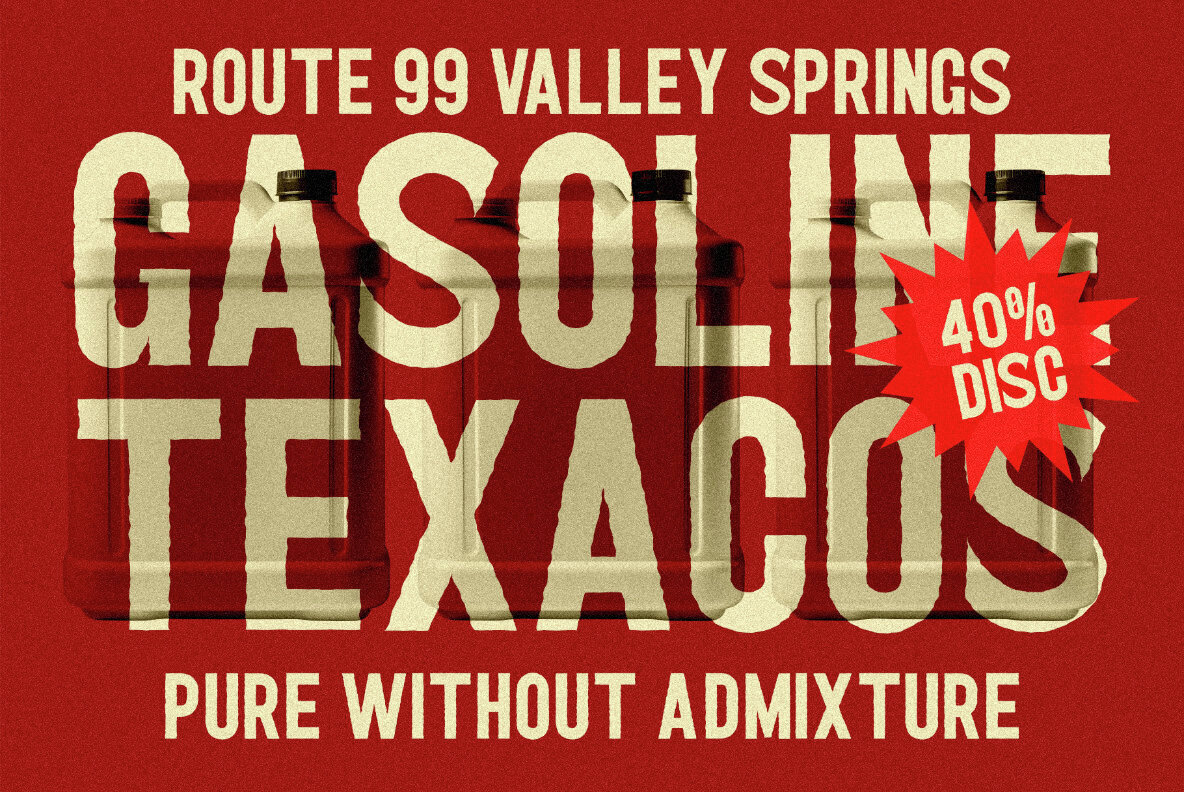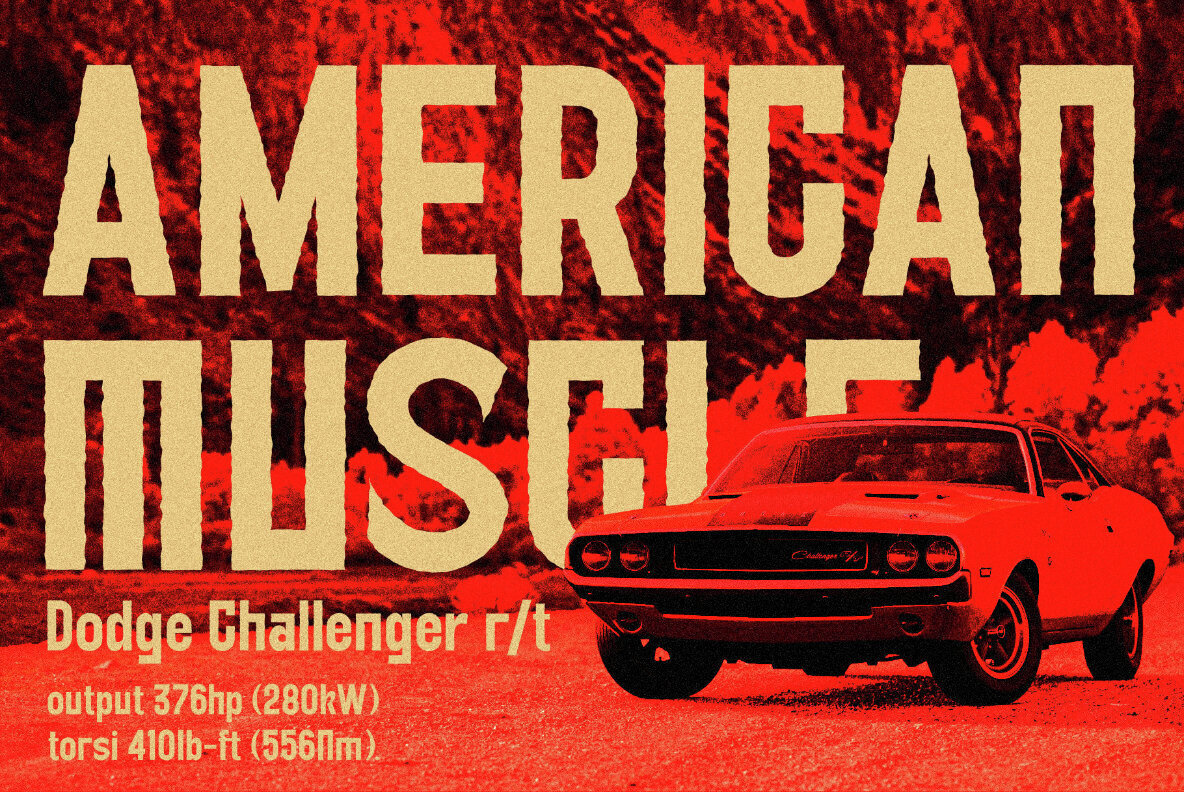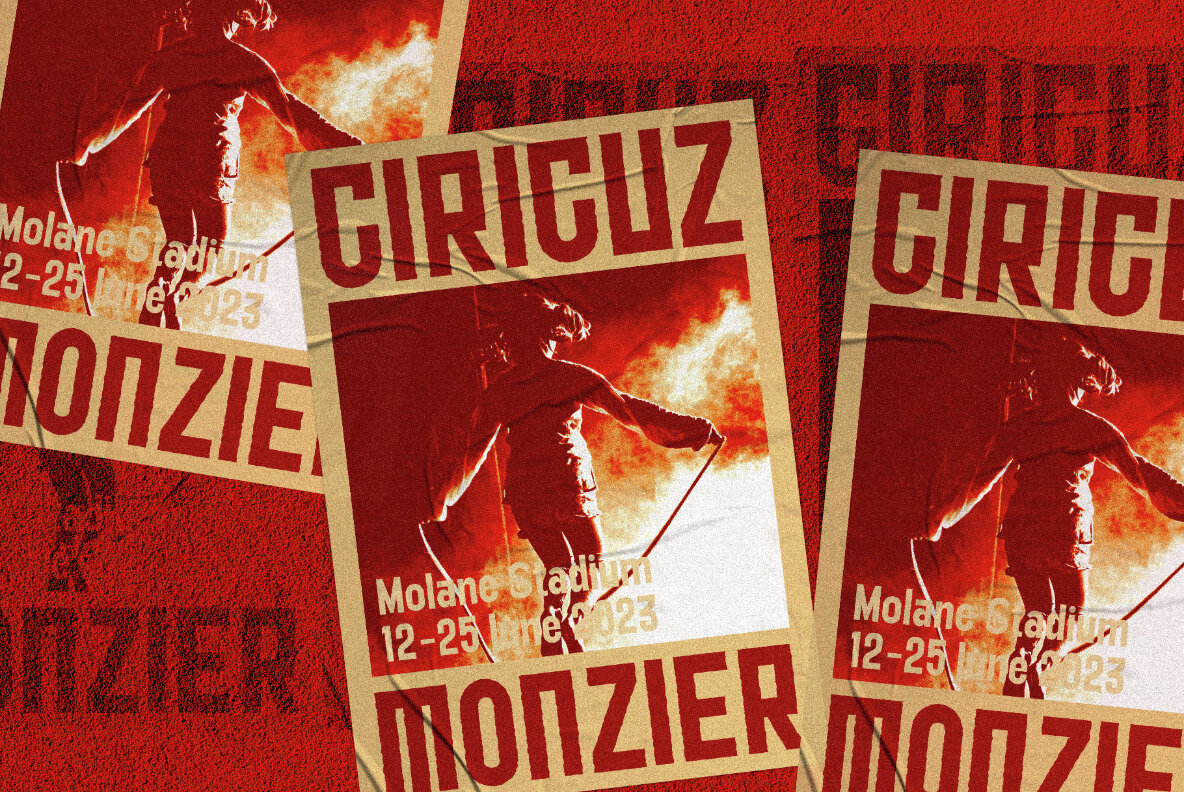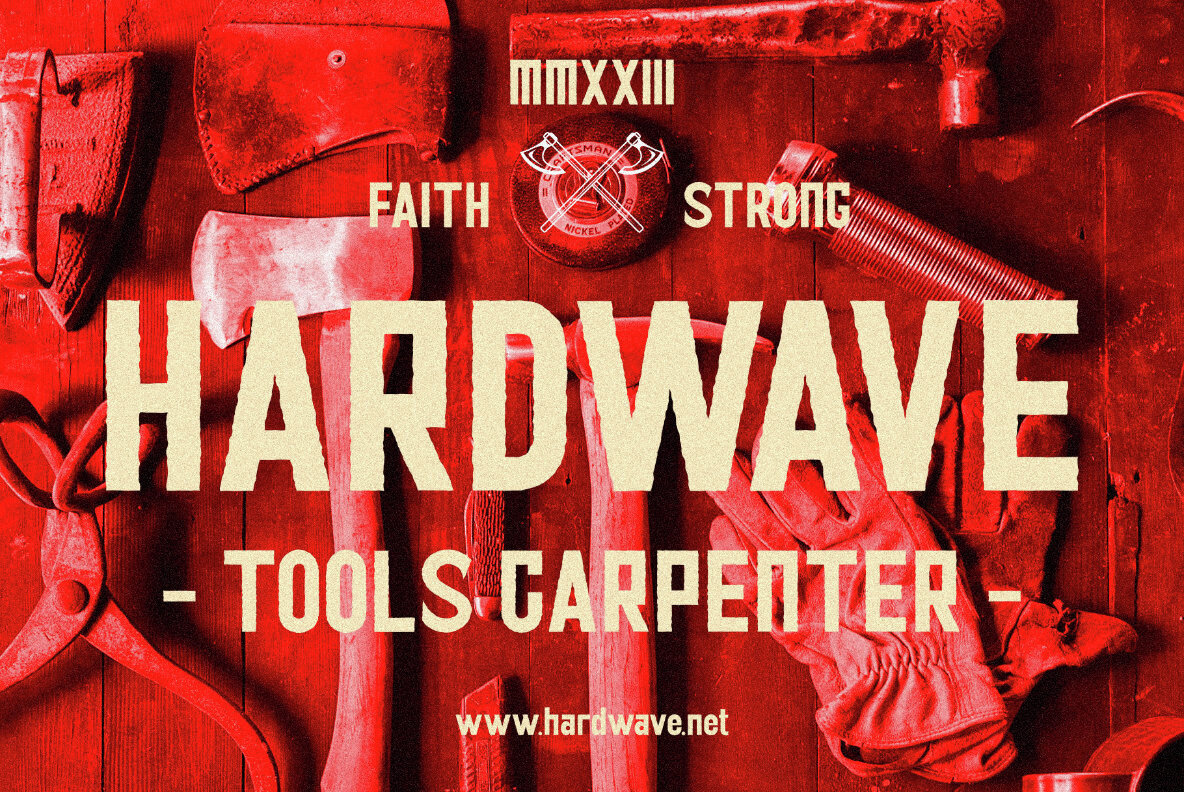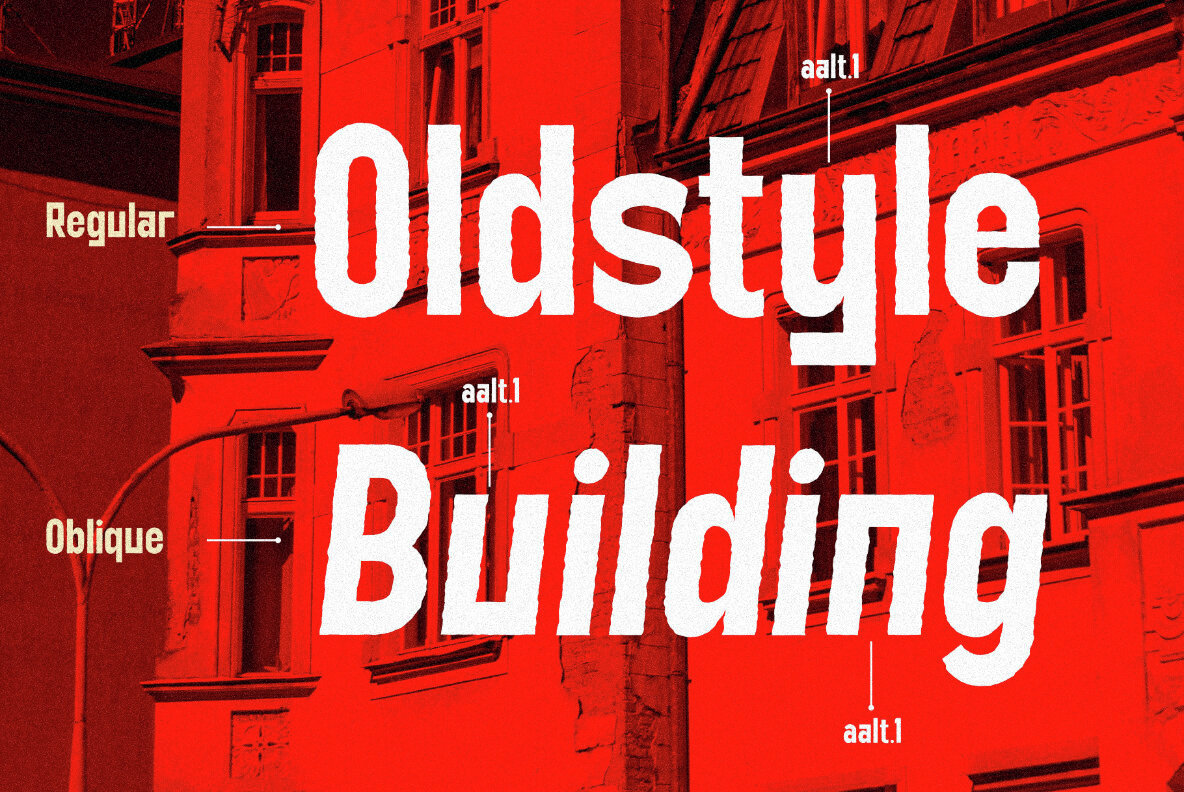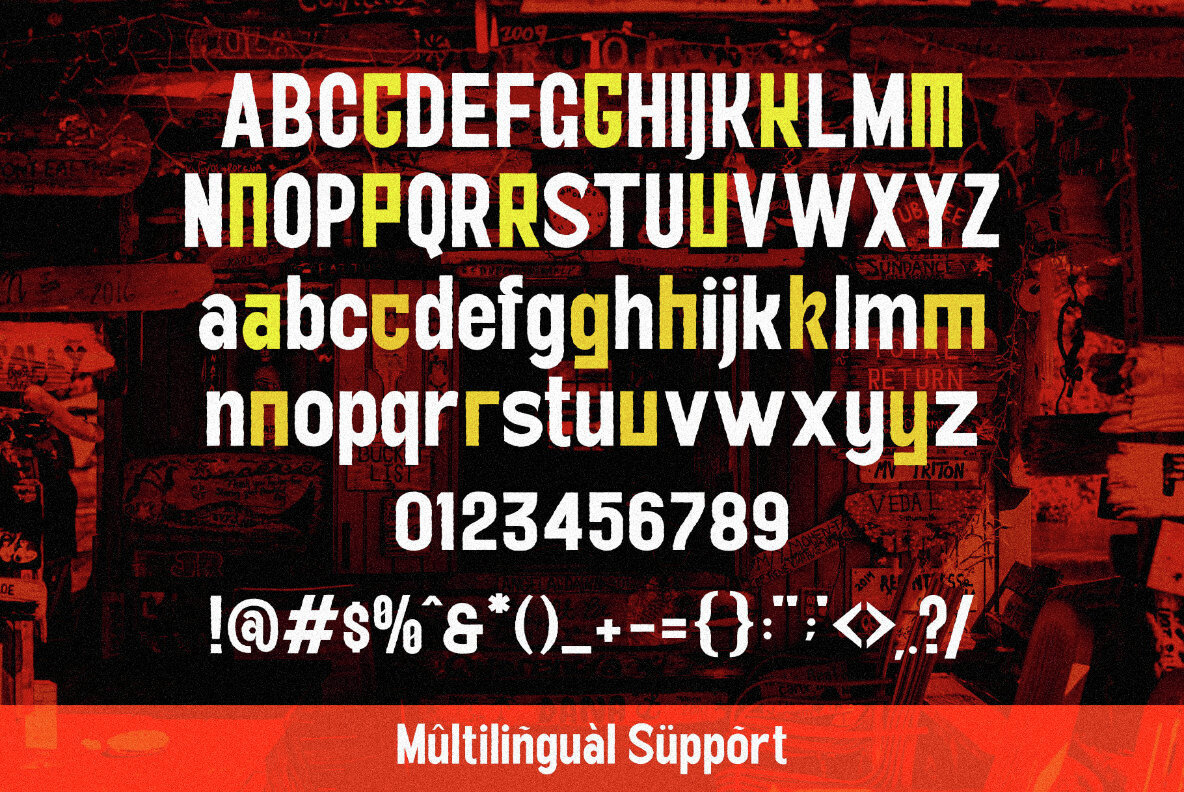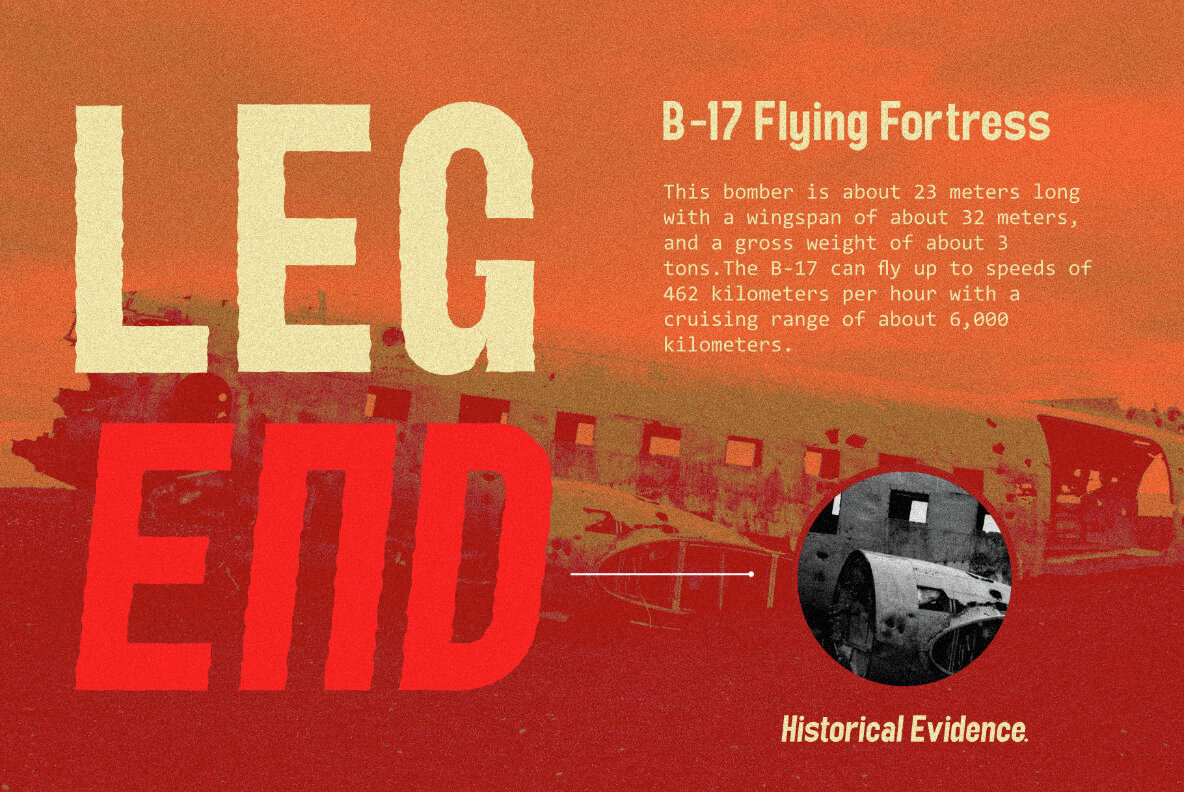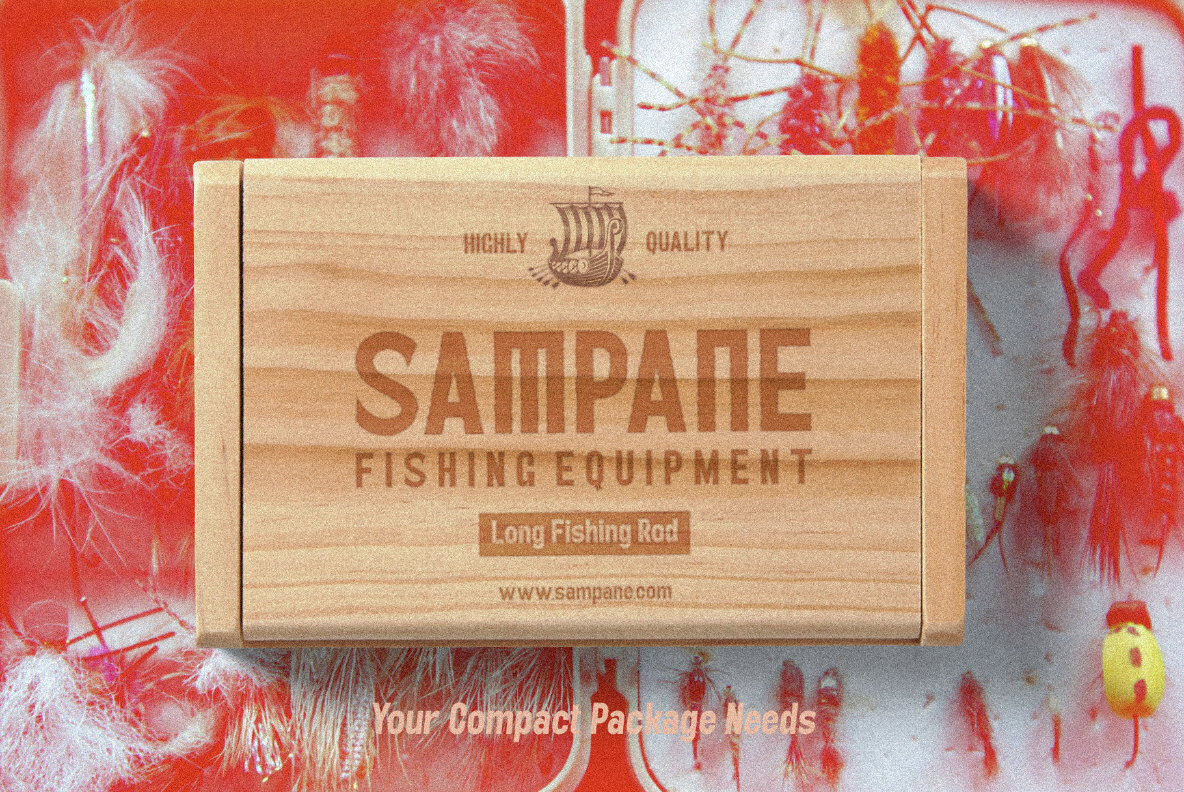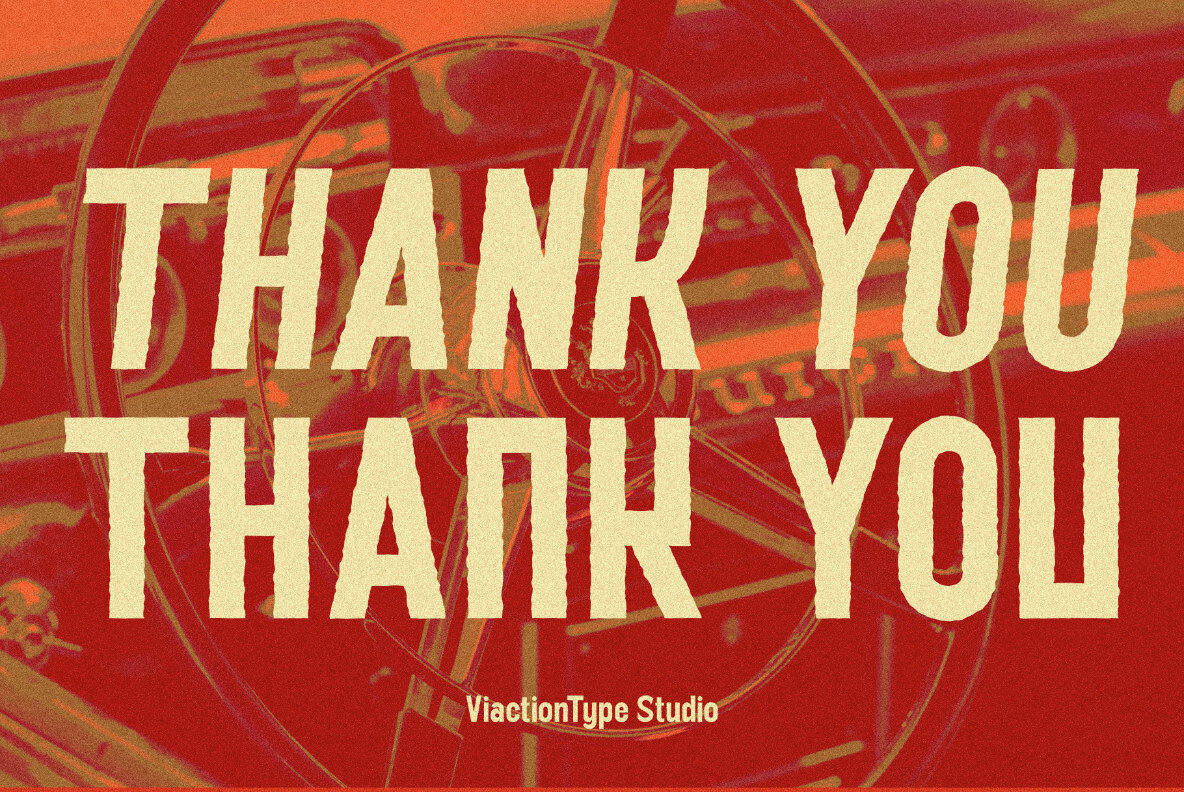
Counter Courage Font
Counter Courage is a vintage-style sans serif font with an ink effect that’s perfect for industrial and vintage-themed designs. This font is equipped with the opentype feature and supports multilingual.